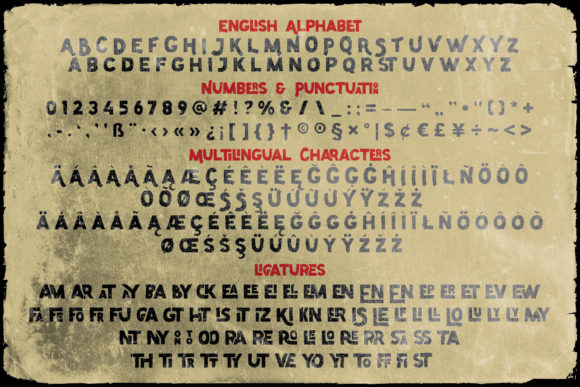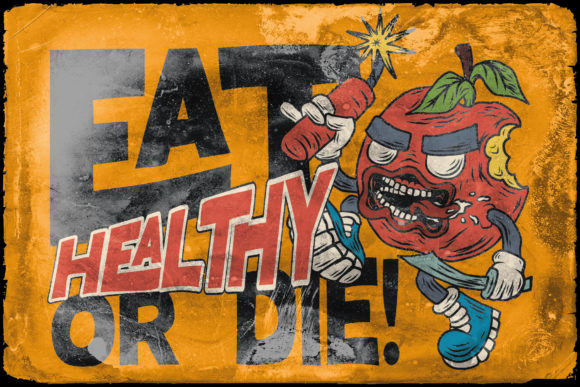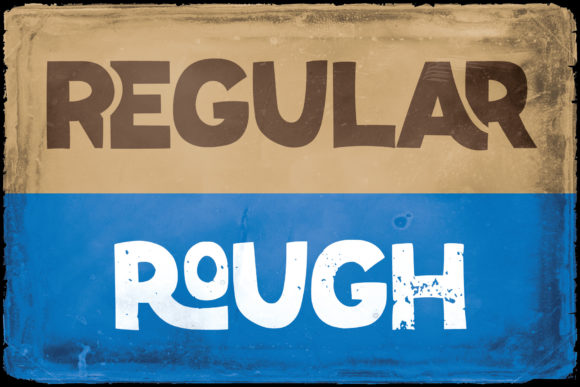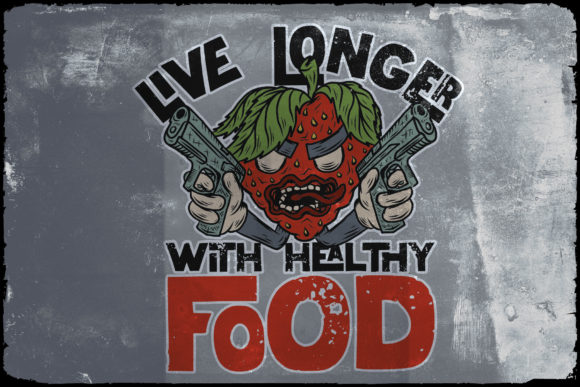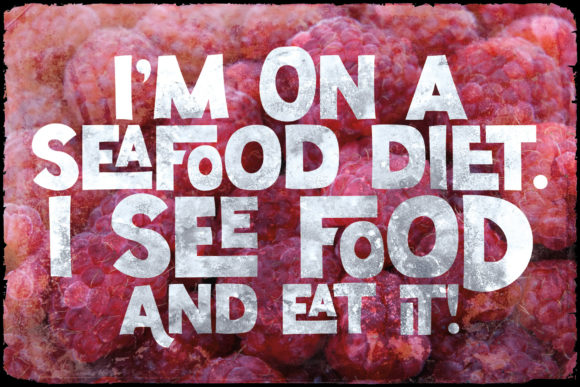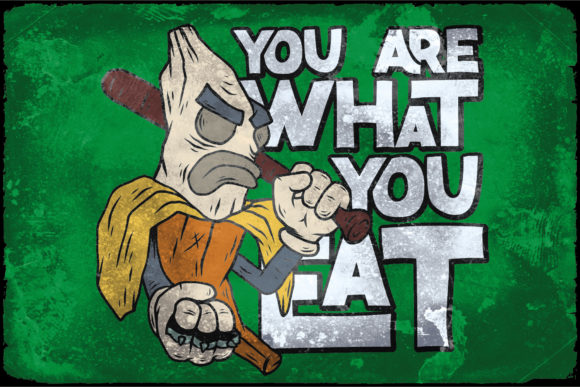
Unleash Your Creativity with Healthy Freak Font: A Spectacular Display Font
Are you a designer, crafter, or DIY enthusiast looking for a font that can take your creative projects to the next level? Look no further than the Healthy Freak Font, a spectacular and eye-catching display font that’s sure to make your ideas even more realistic and create spectacular designs!
What is Healthy Freak Font?
Healthy Freak Font is a unique and stylish display font that’s perfect for a wide range of creative projects, from branding and advertising to crafting and DIY tutorials. Its bold and eye-catching design makes it ideal for headlines, titles, and other applications where you want to grab attention and make a statement.
Key Features of Healthy Freak Font
- Bold and Eye-Catching Design: Healthy Freak Font features a bold and eye-catching design that’s sure to turn heads and grab attention.
- Highly Versatile: This font is highly versatile and can be used for a wide range of creative projects, from digital designs to print materials.
- Easily Readable: Despite its bold design, Healthy Freak Font is easily readable, making it perfect for use in titles, headings, and other applications where clarity is key.
- Unique and Stylish: Healthy Freak Font has a unique and stylish design that’s sure to set your creative projects apart from the crowd.
How to Use Healthy Freak Font
- Use it for Headlines and Titles: Healthy Freak Font is perfect for use in headlines and titles, where its bold design can really make an impact.
- Experiment with Different Colors and Textures: Don’t be afraid to experiment with different colors and textures to really make your designs pop.
- Pair it with Other Fonts: Healthy Freak Font pairs well with a wide range of other fonts, so feel free to get creative and experiment with different combinations.
Benefits of Using Healthy Freak Font
- Increased Visibility: Healthy Freak Font is designed to grab attention and increase visibility, making it perfect for use in advertising, branding, and other applications where you want to stand out.
- Improved Readability: Despite its bold design, Healthy Freak Font is easily readable, making it perfect for use in titles, headings, and other applications where clarity is key.
- Unique and Stylish Designs: Healthy Freak Font has a unique and stylish design that’s sure to set your creative projects apart from the crowd.
Who Can Use Healthy Freak Font?
- Graphic Designers: Healthy Freak Font is perfect for use in graphic design projects, from branding and advertising to digital designs and print materials.
- Crafters and Makers: Healthy Freak Font is perfect for use in crafting and DIY projects, from handmade cards and invitations to craft tutorials and more.
- Small Business Owners: Healthy Freak Font is perfect for use in small business branding and marketing materials, from logos and business cards to social media graphics and more.